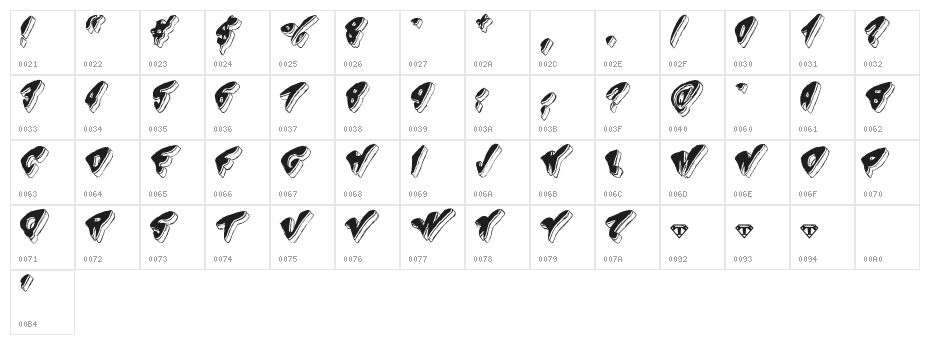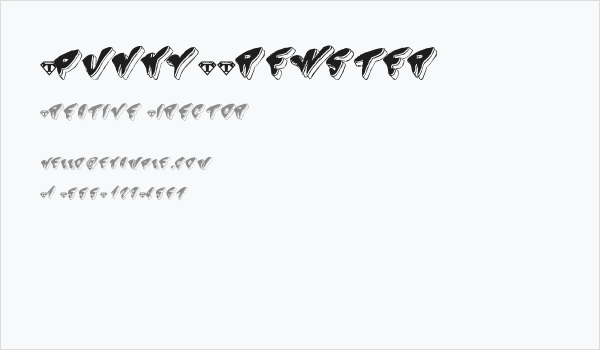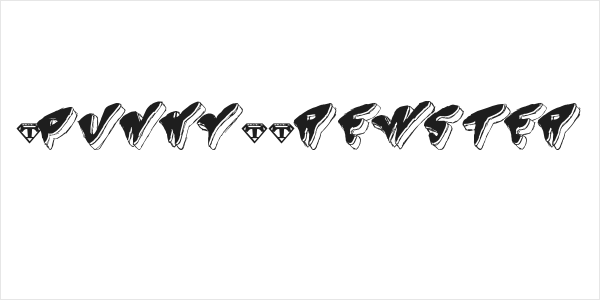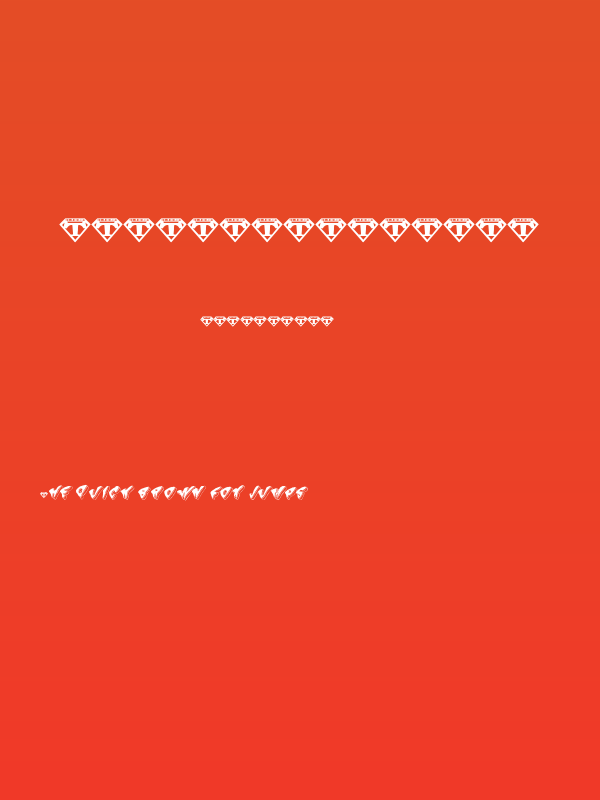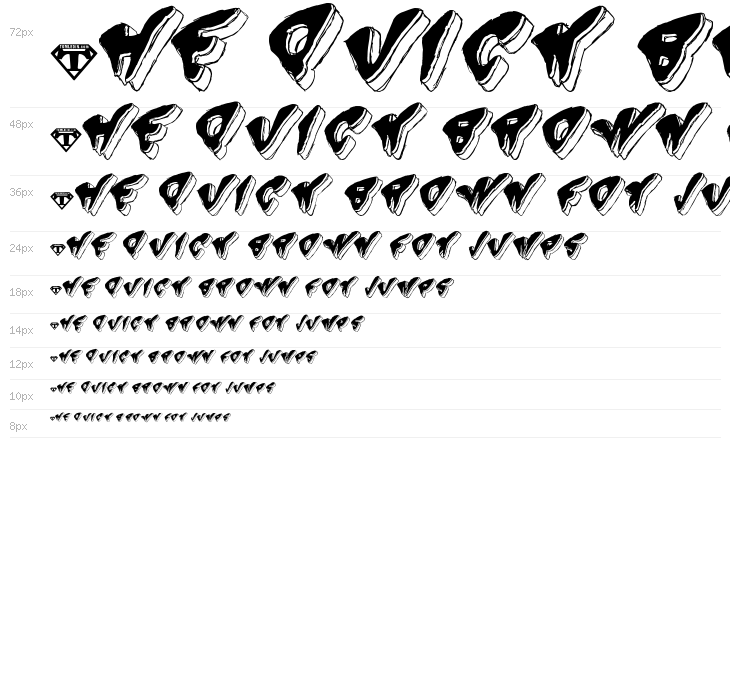
Spunky-Brewster Font
Spunky-Brewster Description
This font features a bold and dynamic 3D graffiti style with a playful and energetic vibe. The letters are thick and rounded, with a shadow effect that gives them a sense of depth and movement. The uppercase and lowercase characters maintain a consistent style, while the numbers and special characters are equally bold and expressive. The font's unique design makes it stand out, perfect for projects that require a touch of creativity and flair.
| Proposed Projects | Ideal for street art-inspired designs, youth-oriented branding, event posters, and creative digital artwork. |